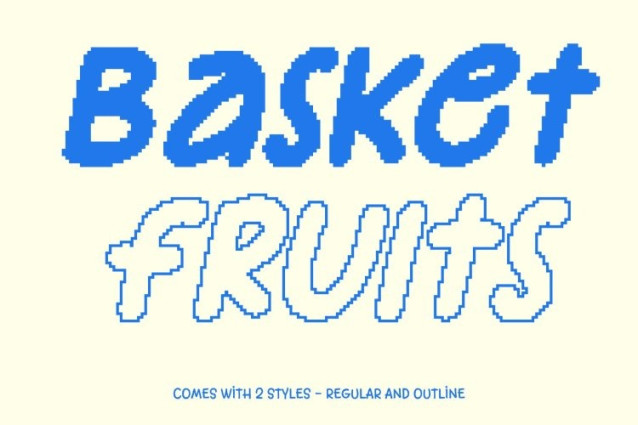
CS Givera Pixel Font This is a fun display font designed to bring playful energy and friendly expression to every project. Its bold, pixel-aligned strokes and lively shapes create a warm, approachable presence that instantly draws attention. Crafted with creativity and charm, this font delivers a fresh, youthful visual tone that lights up any design with personality.
Friendly Pixel Shapes for a Soft, Welcoming Look
Rounded, approachable letterforms give this font a comforting and inviting character. Each shape is thoughtfully designed for clarity and readability while emphasizing playful spirit. The soft, pixel-refined construction makes it ideal for joyful, expressive, and visually engaging designs.
Energetic Style for Vibrant, Creative Layouts
With its lively rhythm and dynamic forms, this font radiates fun and positivity. Bold structure enhances visibility, while quirky pixel touches add movement and visual interest. This expressive style makes your text feel energetic, approachable, and full of personality.
Perfect for Youth Branding, Greeting Cards, and Casual Projects
This font shines in youth branding, greeting cards, casual design projects, packaging, posters, and playful social media graphics. It’s perfect for uplifting messages, fun logos, and lighthearted event visuals, bringing a bright, friendly, and digitally polished personality to every project.